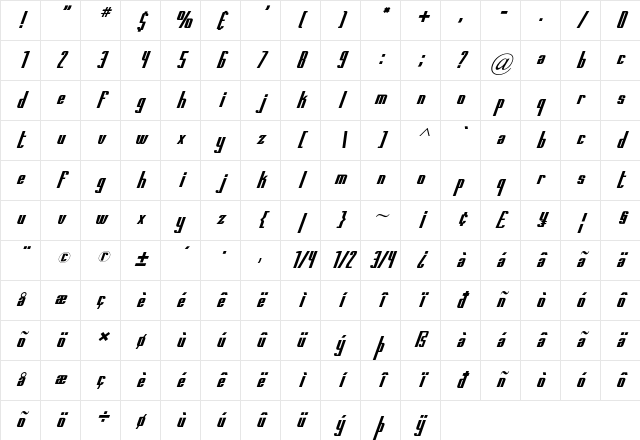
Printed Circuit Board Italic
Printed Circuit Board Family
Printed Circuit Board Italic
Design Context for Printed Circuit Board
Printed Circuit Board is a composed and adaptable typeface that performs quietly and consistently across a wide range of design contexts. The slanted form adds forward momentum and visual energy.
Pro Tip: Use Printed Circuit Board for emphasis, pull quotes, and subheadings where its slanted energy can add rhythm to the layout.